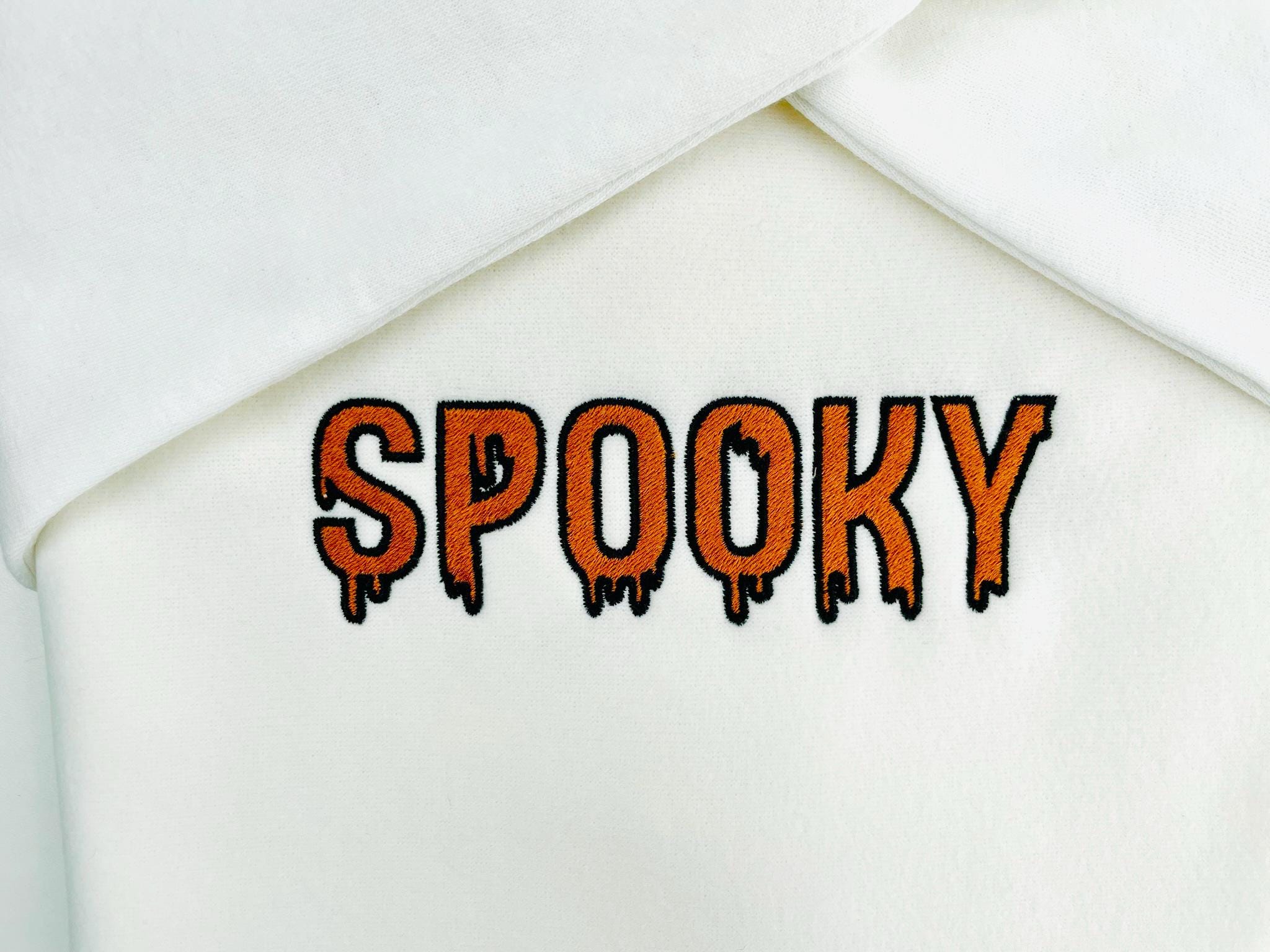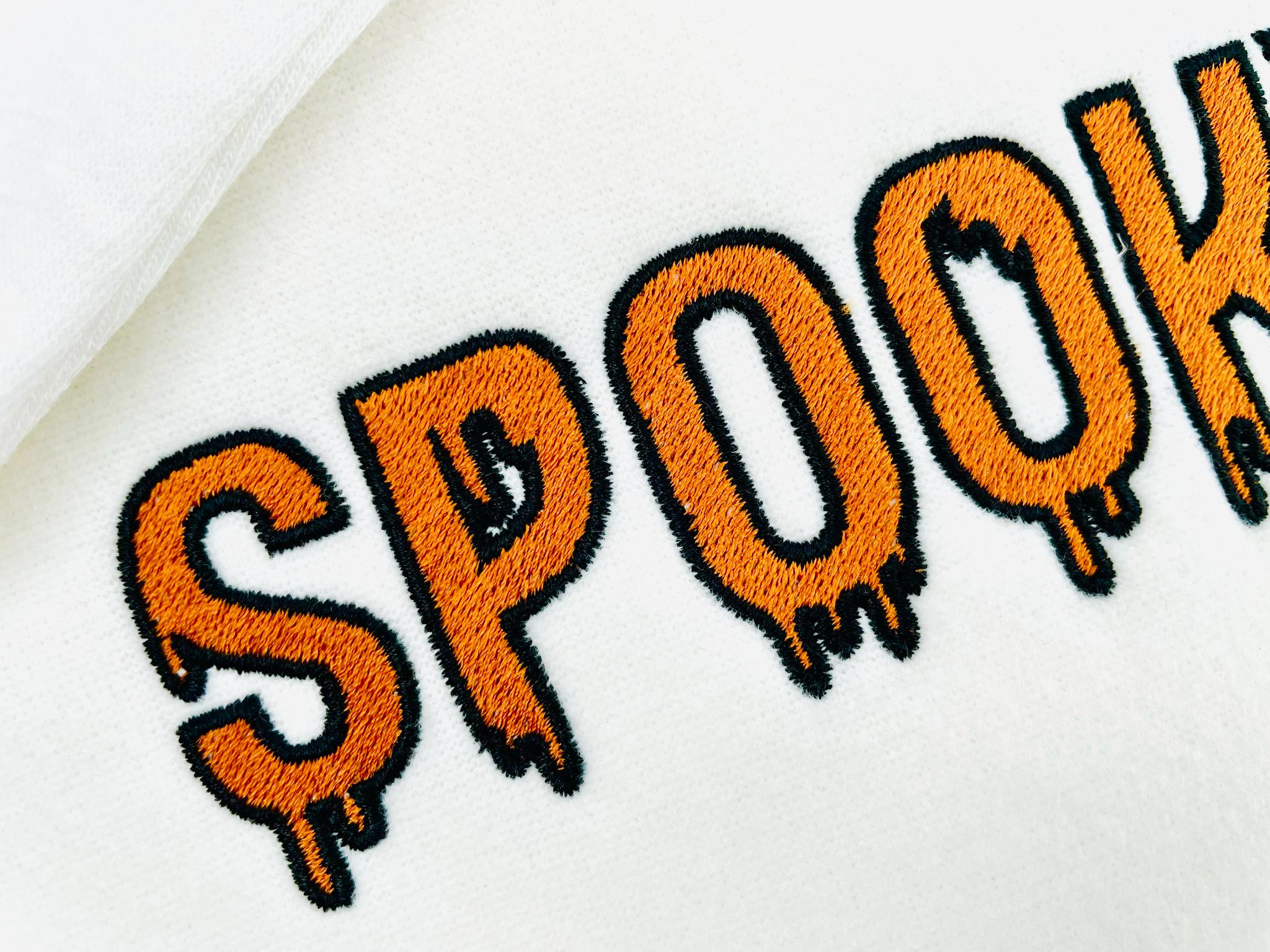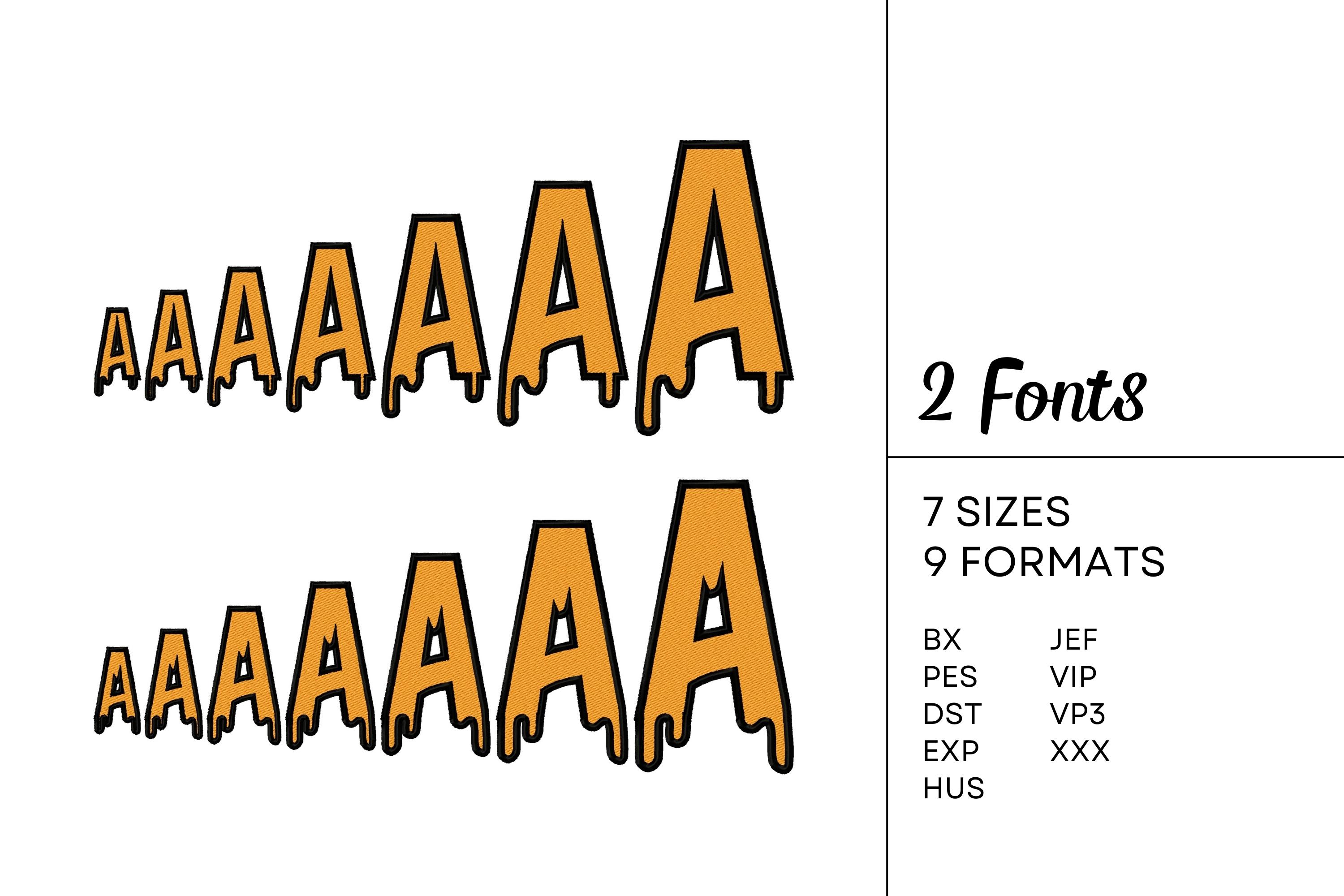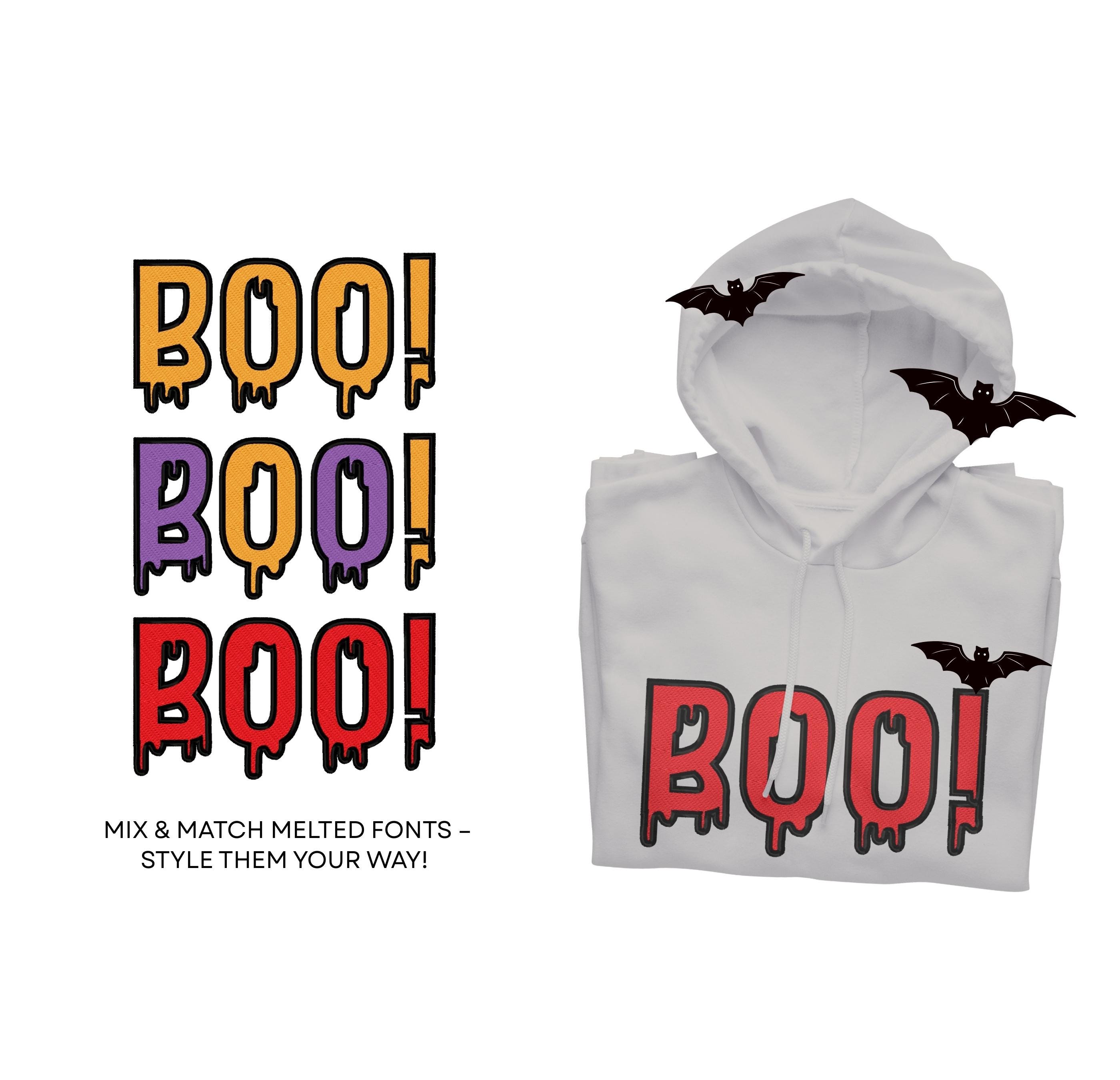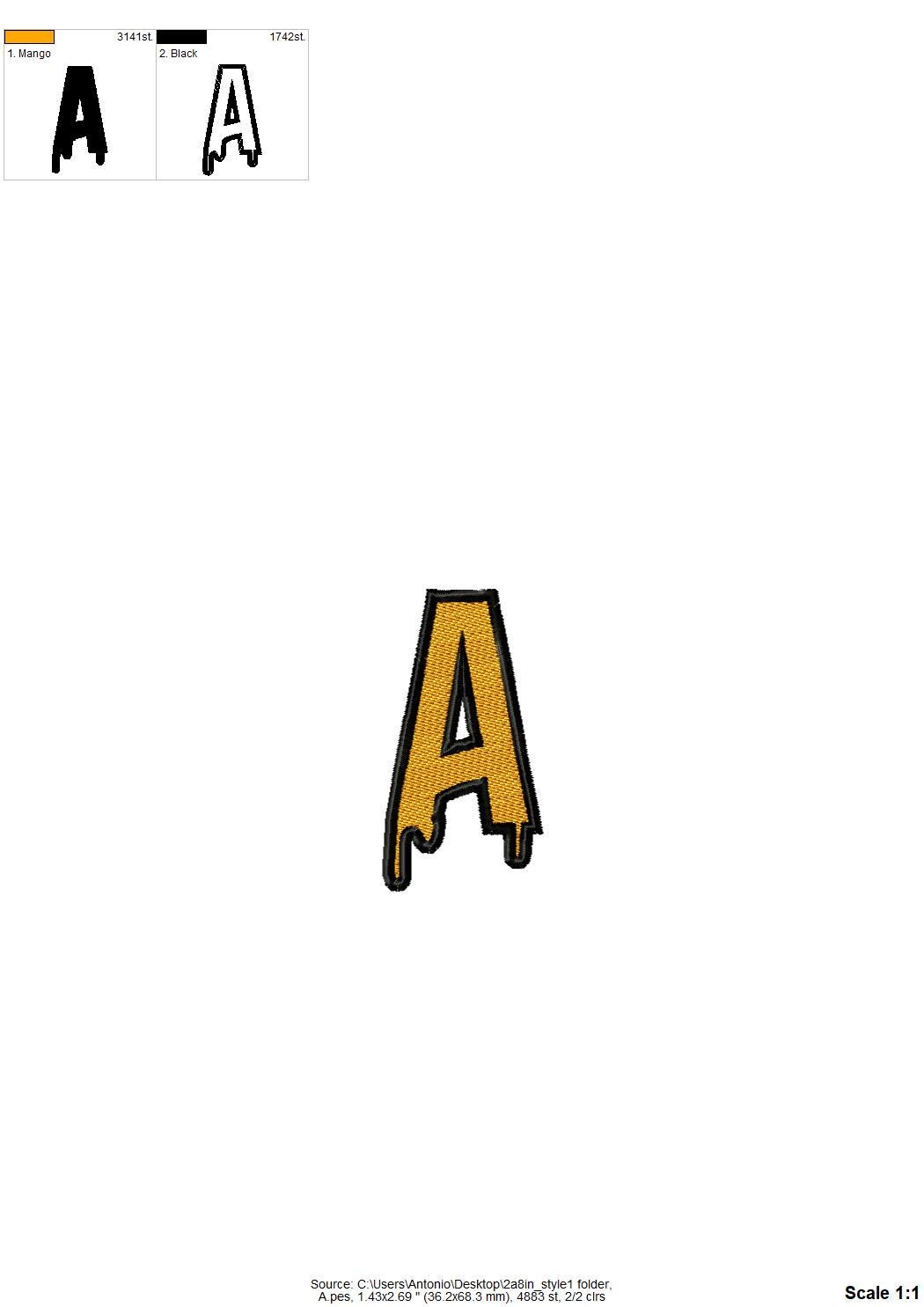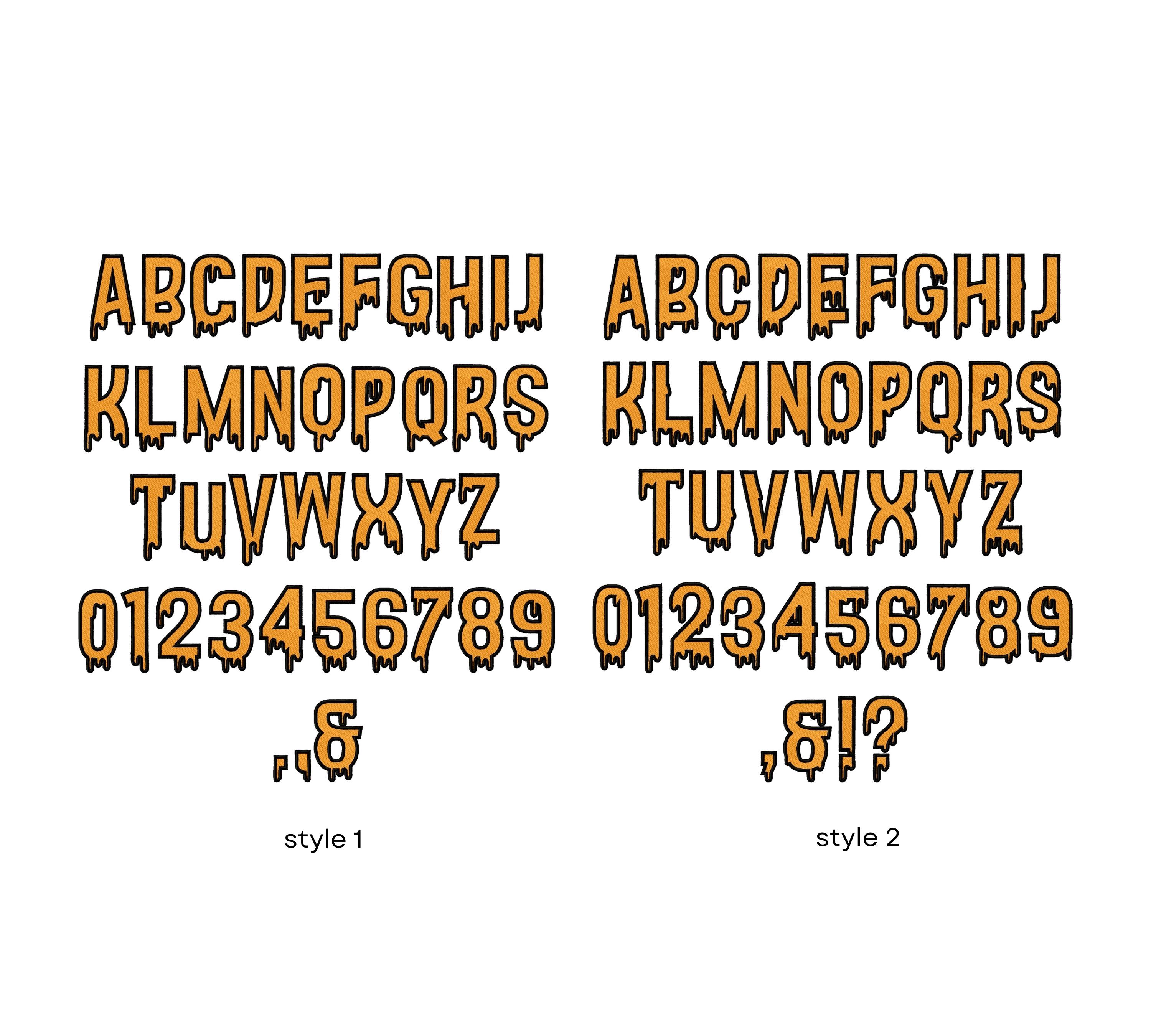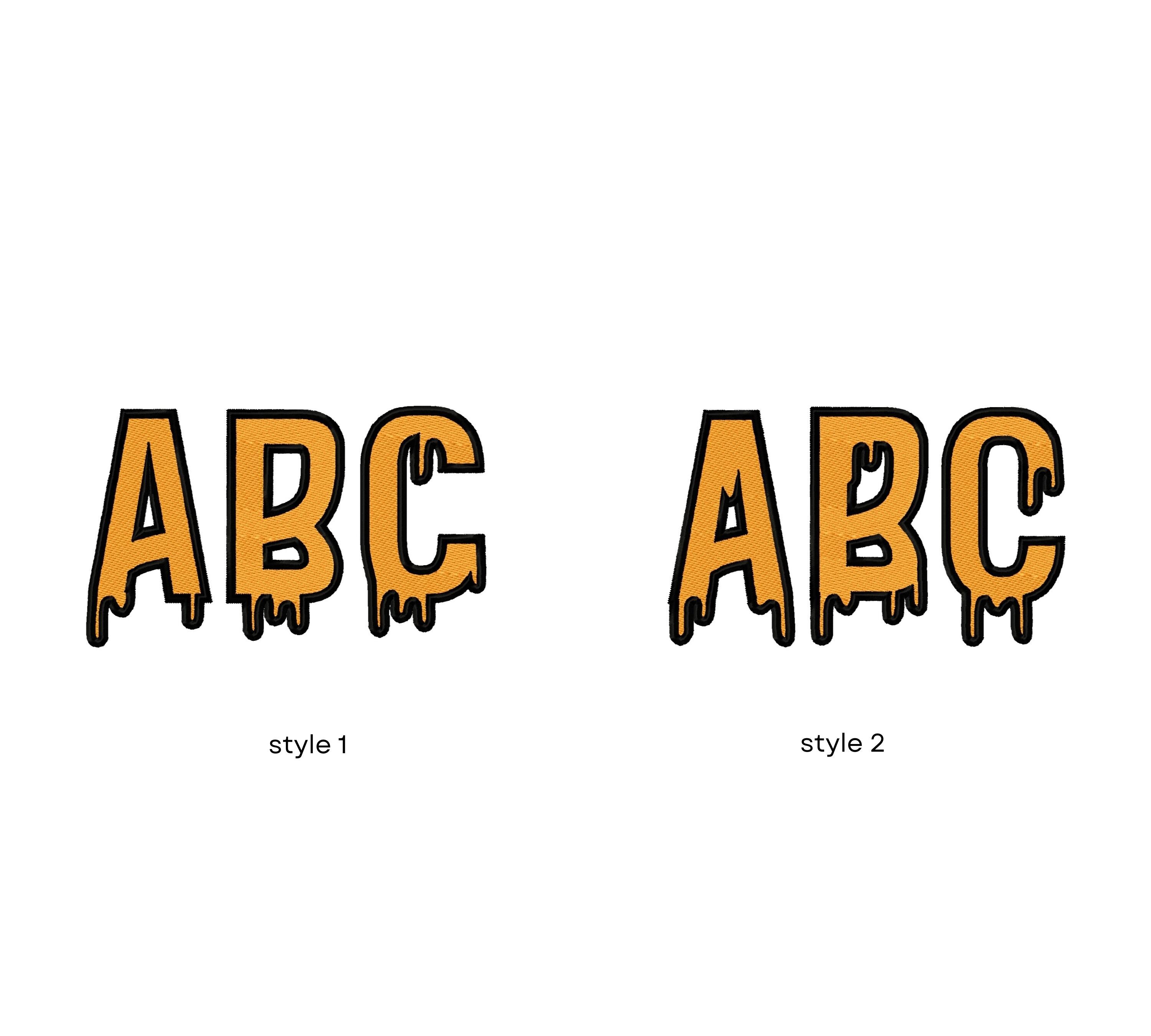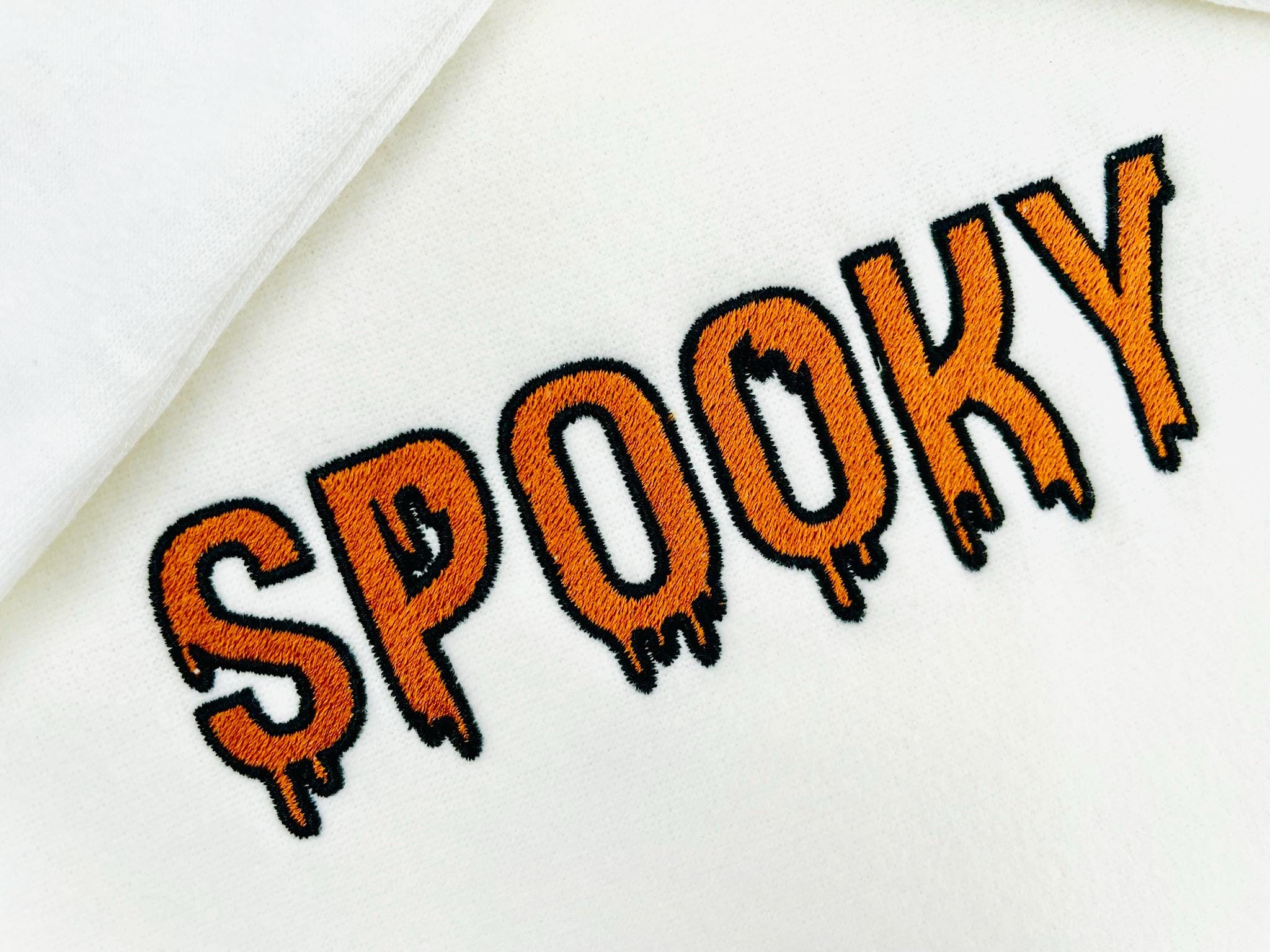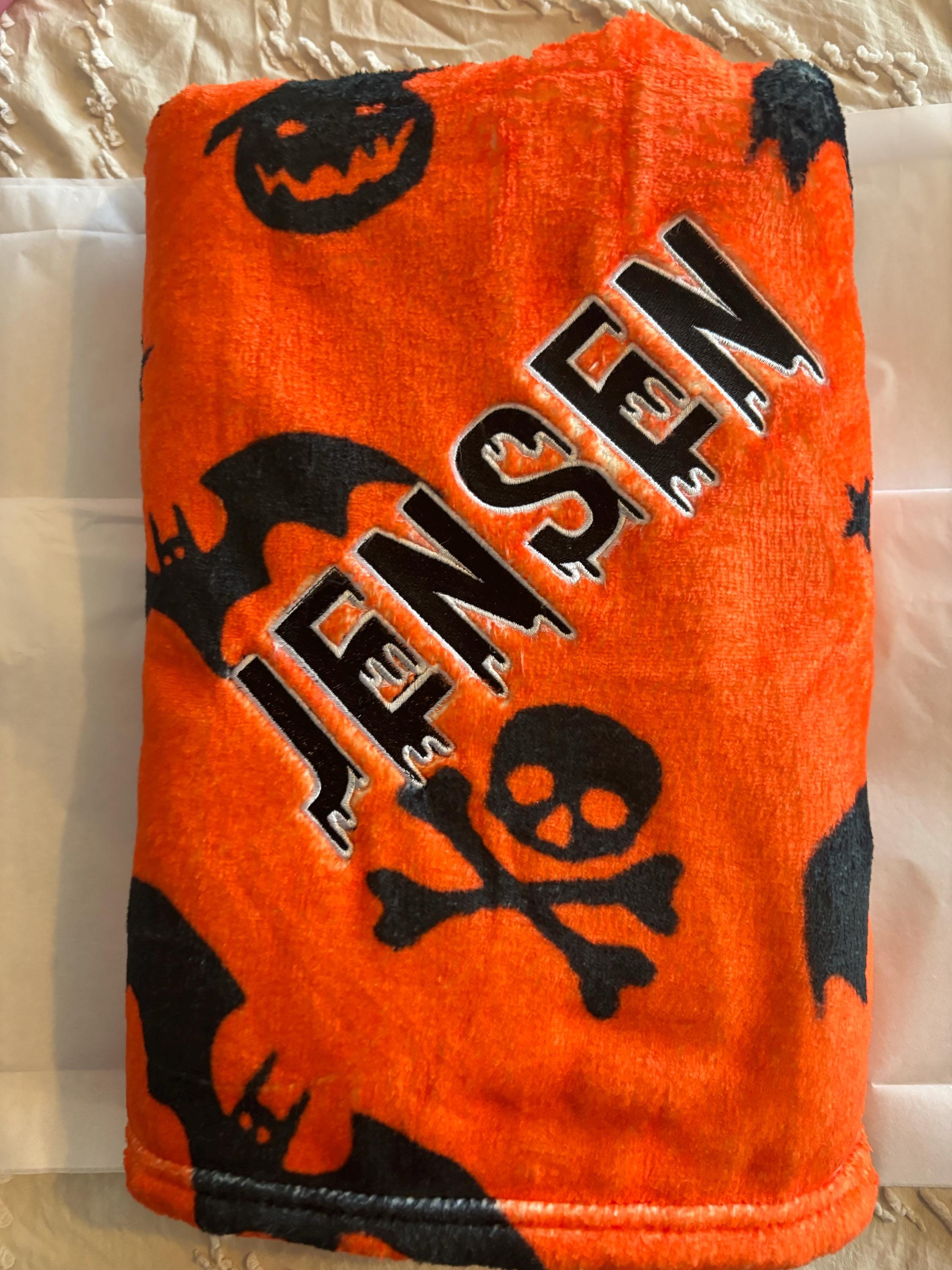
Halloween Spooky Melted FONT 2 styles Block type fill stitch and outline best Melting Dripping alphabet monogram machine embroidery designs
Included 2 slightly different fonts in matching sizes. Combine as you like.
Entire alphabet capital letters A-Z, numbers 0-9, and punctuation.